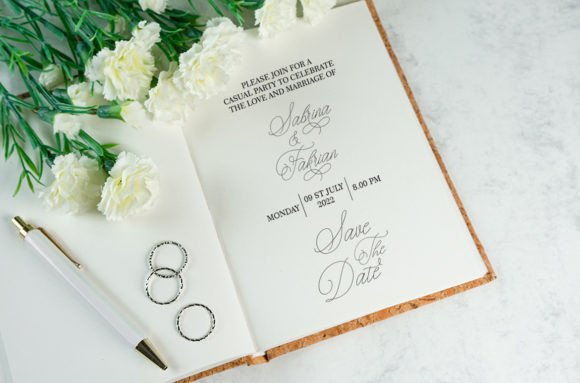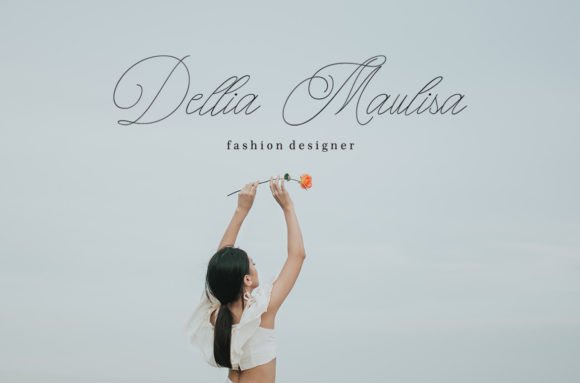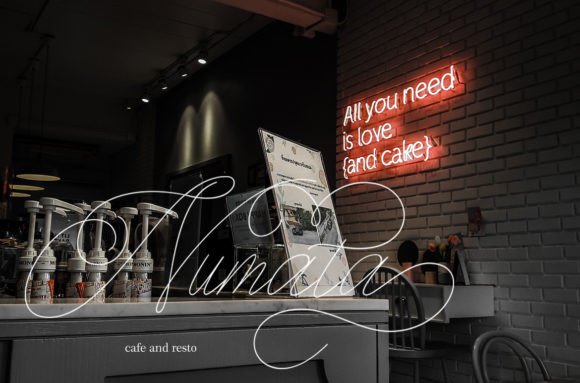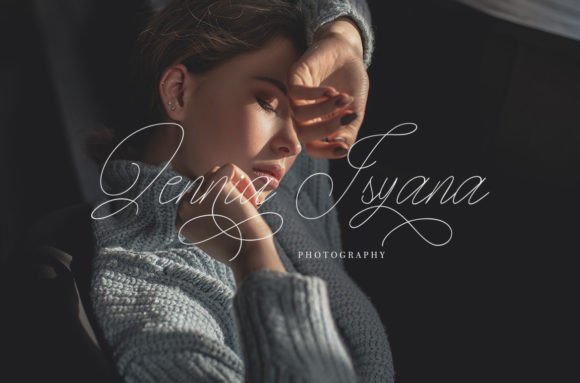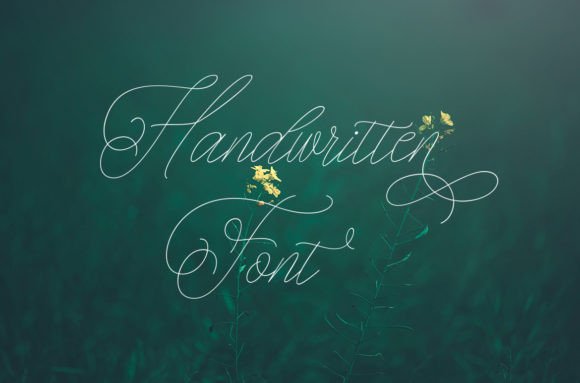
Respect Signature Font
About Respect Signature Font
“Respect Signature” is a dazzling script font that adds a touch of elegance and sophistication to your design projects. This font is meticulously crafted and highly detailed, making it a valuable asset in your font library. It has the potential to enhance a wide range of creative creations.
The font’s script style is characterized by its graceful and well-crafted characters. It conveys a sense of refinement and attention to detail, making it ideal for projects that aim to create a stylish and sophisticated atmosphere. “Respect Signature” enhances the visual appeal of your designs, making them both captivating and memorable.
In the world of design, fonts play a pivotal role in conveying mood, style, and visual identity. “Respect Signature” excels in these aspects by offering a script font that is both dazzling and visually appealing. Its meticulous detailing and elegant curves make it suitable for a variety of design applications.
In summary, “Respect Signature” is a font that exudes elegance, sophistication, and attention to detail, making it an excellent choice for enhancing your creative projects. Whether you’re working on branding, invitations, or any project that requires a touch of refinement, “Respect Signature” is the font that can help you craft designs that are truly stunning and memorable.